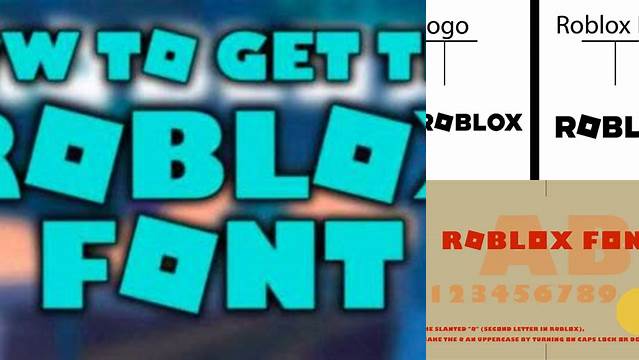
Hey guys! Ready to dive into the awesome world of fonts for Roblox? You know, choosing the right font can seriously level up your game's look and feel, making it way more engaging for players. It's like picking the perfect outfit – it just makes everything better! So, let's explore how to find the coolest fonts, add them to your Roblox creations, and make your game stand out from the crowd. Buckle up, because we're about to get font-tastic!
Roblox Font Types: Exploring the Options
When we talk about fonts for Roblox, we're not just talking about any old text. The platform supports various font types, each offering a unique vibe. Understanding these is the first step to picking the perfect match for your game. Think of it like choosing different flavors of ice cream – you want the one that complements your game's style.
First off, there's the default font, which is what you'll see if you don't specify anything. It's like the plain vanilla – reliable, but maybe not the most exciting. Then, you've got the built-in fonts, like Source Sans Pro and Gotham, offering a range of styles from clean and modern to a bit more playful. These are super easy to use, as they're already integrated into the Roblox platform. They are your go-to options for text elements. The selection might seem limited at first, but there's still room for creativity and personalization. To unlock even more options, you can explore custom font imports using the Font object in Roblox Studio. This opens up a whole new world of possibilities, allowing you to use fonts that perfectly match your game's theme and branding. This is done through the Font object and allows you to upload your own font files. This takes more effort, but the potential payoff is huge, enabling you to achieve unique and striking visual styles that set your game apart.
Choosing the right font depends on your game's genre, target audience, and overall aesthetic. A sleek, modern font might be perfect for a futuristic sci-fi game, while a more whimsical, hand-drawn font could be ideal for a kids' adventure game. Consider the readability of the font, especially for longer blocks of text. You want players to be able to easily read instructions, dialogue, and other important information without straining their eyes. Experiment with different fonts and see how they look in the game environment. You can also get feedback from other players to get different perspectives. By considering these factors, you can create a visually appealing and engaging game that keeps players coming back for more.
Roblox Font Design: How to Select the Best Styles
Selecting the best fonts for Roblox is like choosing the right ingredients for a delicious recipe. The right font can enhance your game's design, while the wrong one can make it look cluttered or unprofessional. Let's break down the essential elements of font selection to make sure your Roblox game looks its absolute best.
First up, consider the readability. Is the font easy to read, even when it's small or in a busy environment? If players struggle to read your text, they will quickly lose interest. Opt for fonts that are clear and easy to decipher, especially for important in-game information. Next, think about personality. Does the font fit your game's theme and overall style? A cartoonish font might work great for a fun, lighthearted game, but it could clash with a serious or action-packed one. Experiment with different fonts to find one that complements the game's setting and tone. Consistency is key. Stick to a consistent font throughout your game to maintain a cohesive look. Mixing too many fonts can make your game look disorganized and confusing. Using the same font for menus, dialogue, and other text elements creates a professional and polished feel. Don't be afraid to experiment and get feedback. Try different fonts in your game and see how they look. Show your game to friends or other Roblox developers and get their opinions. They might be able to suggest better options or different font combinations. Choosing the right font is a critical part of game design. By carefully considering readability, personality, and consistency, you can choose fonts that improve the visual appeal of your game and provide a great experience for your players.
Roblox Font Customization: Mastering Text Effects
Ready to take your fonts for Roblox to the next level? Customization is the name of the game! There are a lot of cool text effects you can apply to make your text pop and grab players' attention. Let's dive into some awesome techniques and how you can implement them.
Color is your first tool. Experiment with different colors to match your game's theme or highlight important information. Use bright, contrasting colors to make text stand out against the background. For instance, a neon green font on a dark background can look super cool. Size matters. Adjust the size of your text to emphasize certain words or phrases. Bigger text is great for titles and headings, while smaller text can be used for detailed descriptions. Font Styles. You can use bold, italics, and underlines to add emphasis. Bold is perfect for important words, italics can add a touch of flair, and underlines can highlight clickable elements or links. Shadows are the perfect way to add depth to your text. Use the shadow effect to make your text pop out from the background. You can play with the shadow's color, offset, and blur to get the perfect look. Outlines are a great way to make text visible against any background. Add a contrasting outline around your text to improve its visibility. This is especially useful in busy or colorful environments. Gradients can add some dynamic and eye-catching effects. Blend two or more colors together to create a gradient effect within your text. Animations are cool to capture attention. Create simple animations like text scaling or fading in and out to draw attention to important information. Remember to balance all effects. Too many effects can make your text look cluttered or distracting. Use effects strategically to enhance your game's design and improve the player experience. By using these customization techniques, you can make your text visually appealing and create a more engaging experience for your players. So, get creative, experiment, and have fun with it!
Integrating Fonts for Roblox: A Step-by-Step Guide
So, you've got some awesome fonts for Roblox you want to use? Awesome! Let's walk through the steps to get them into your game and make those words look amazing. It's easier than you think, I promise.